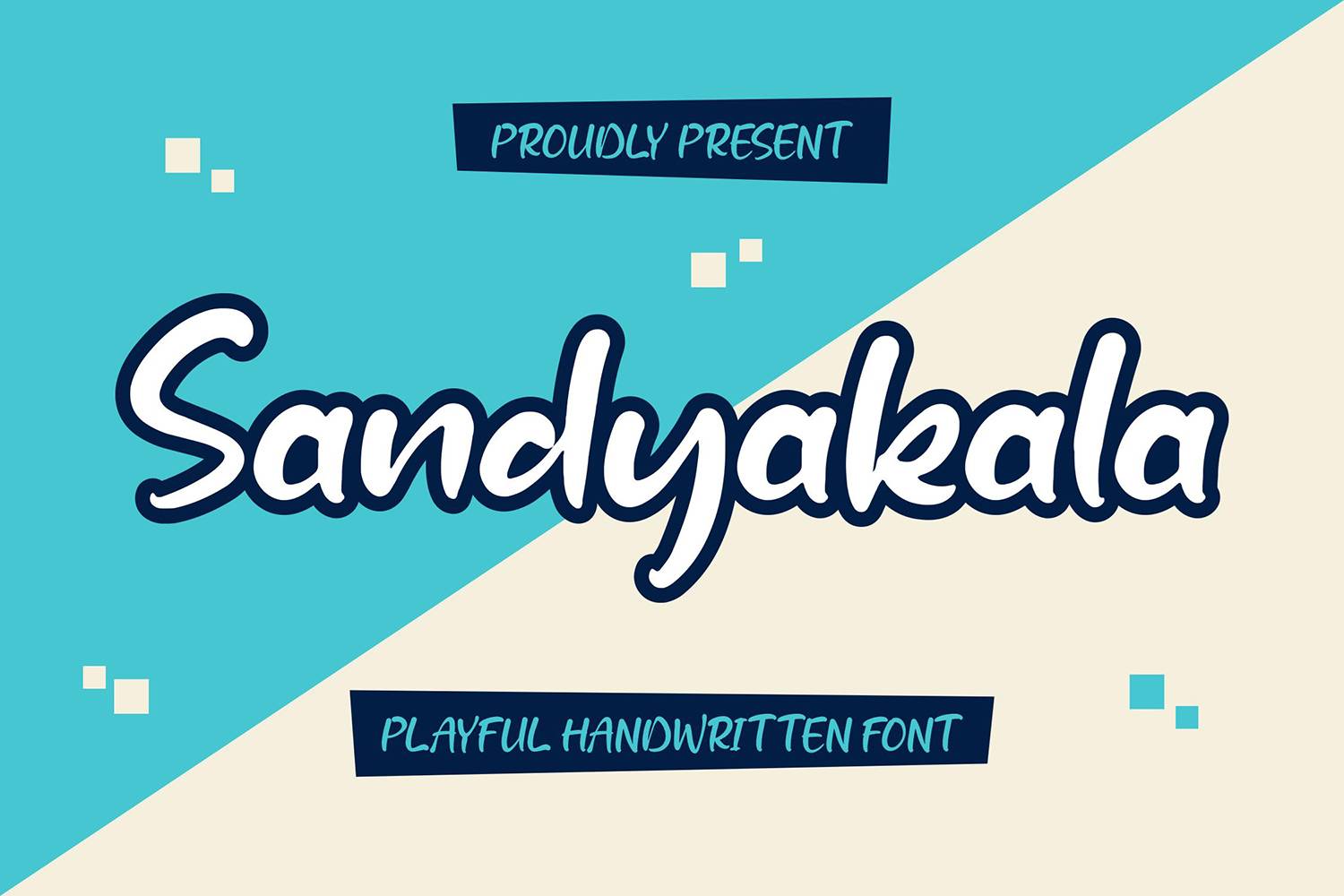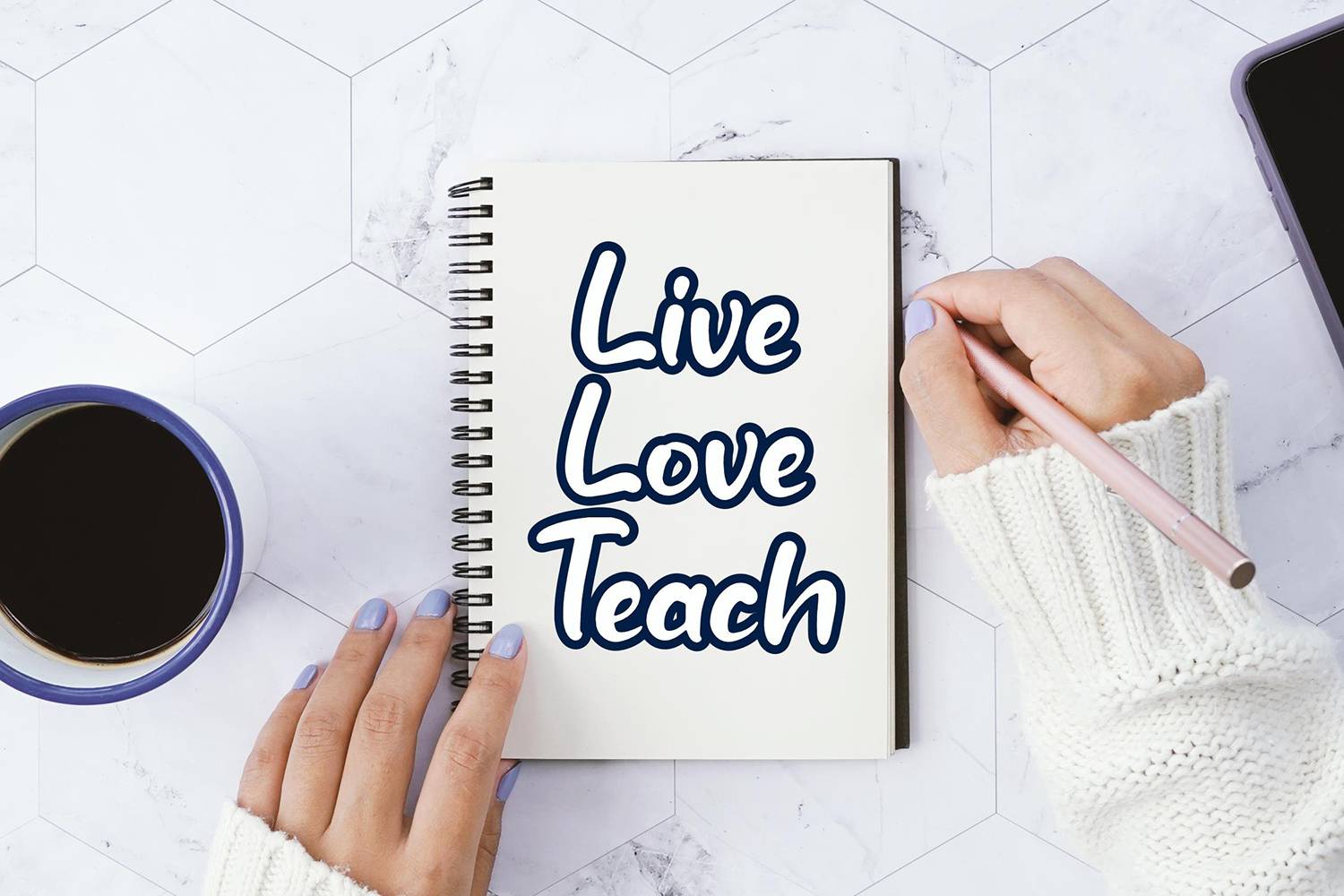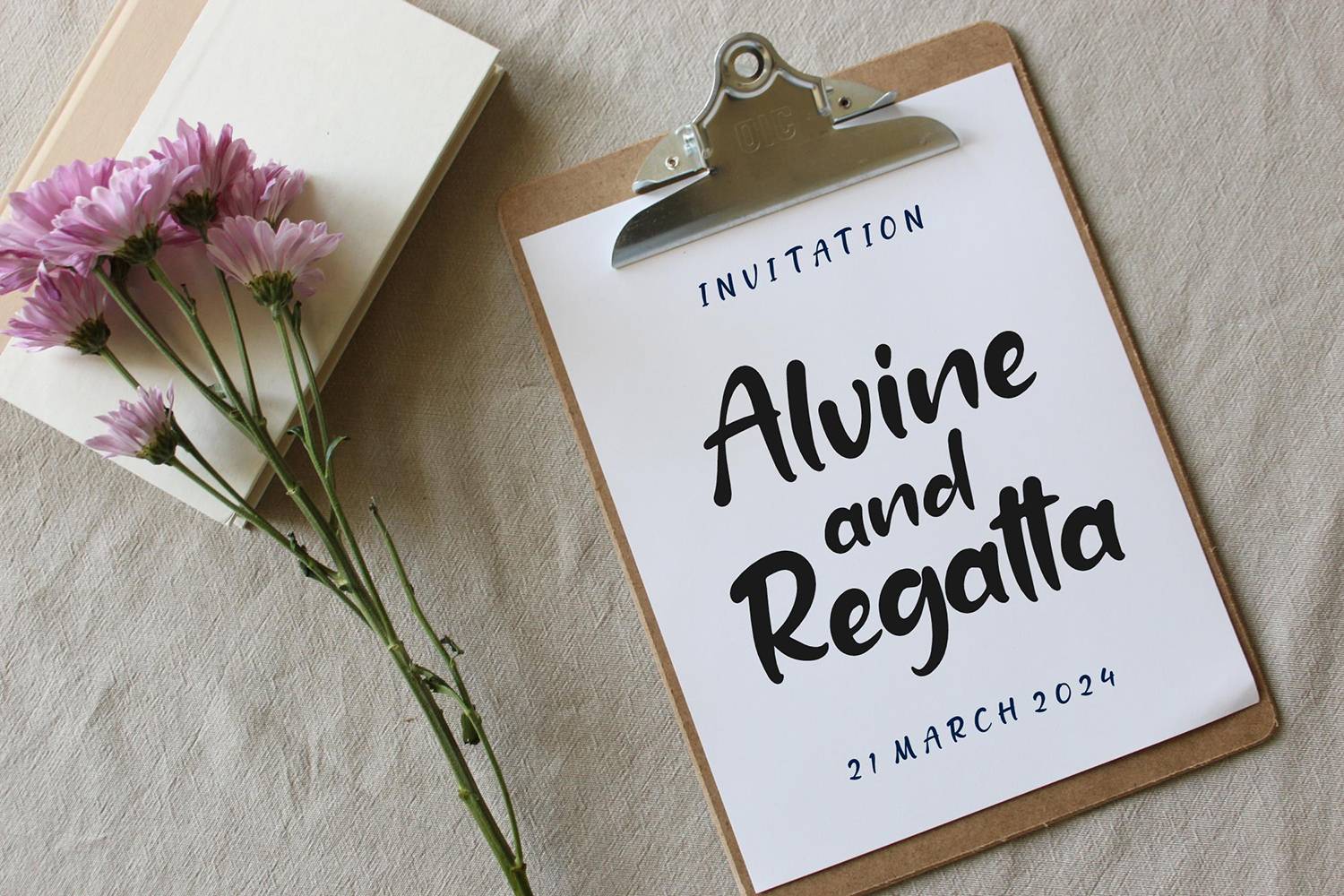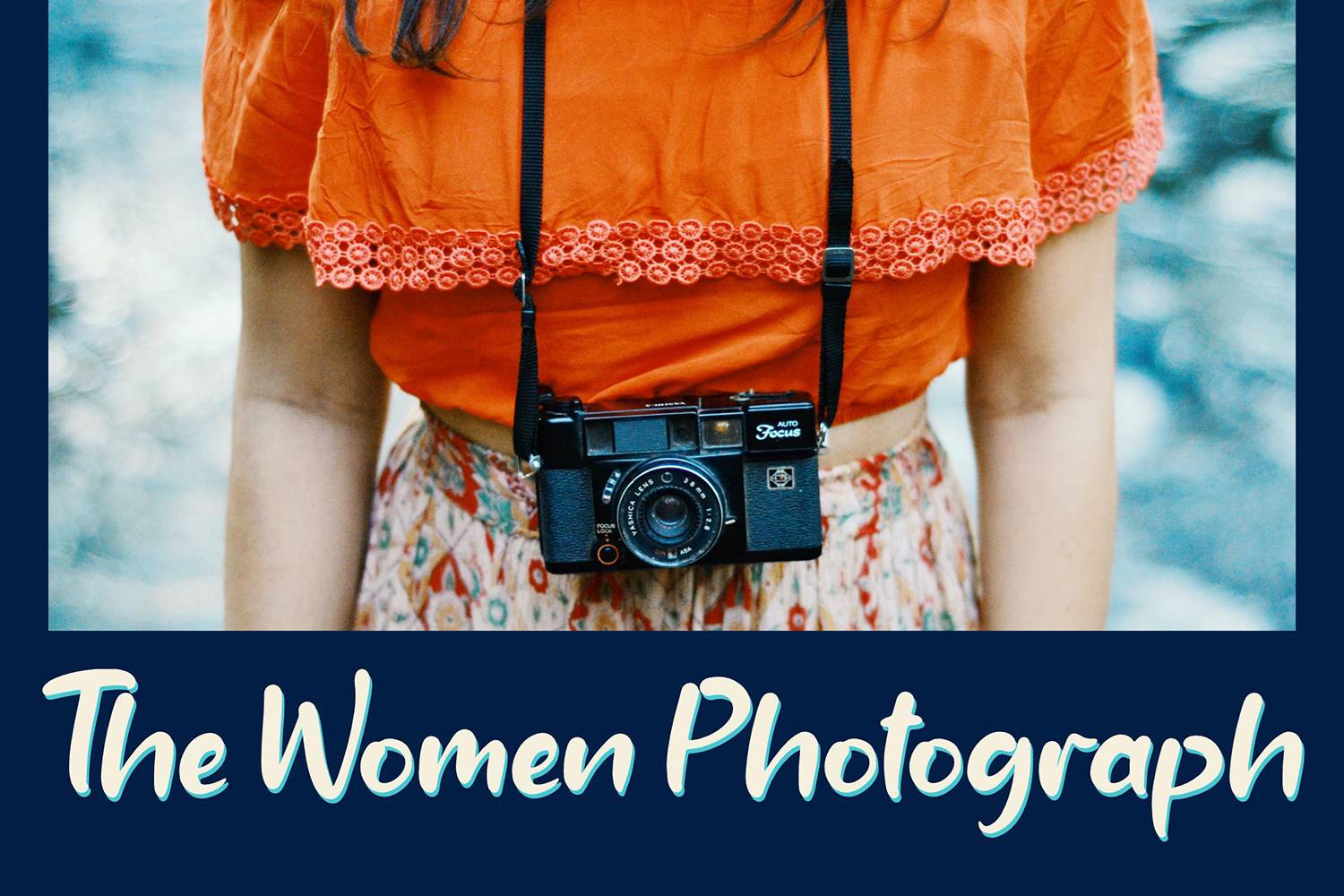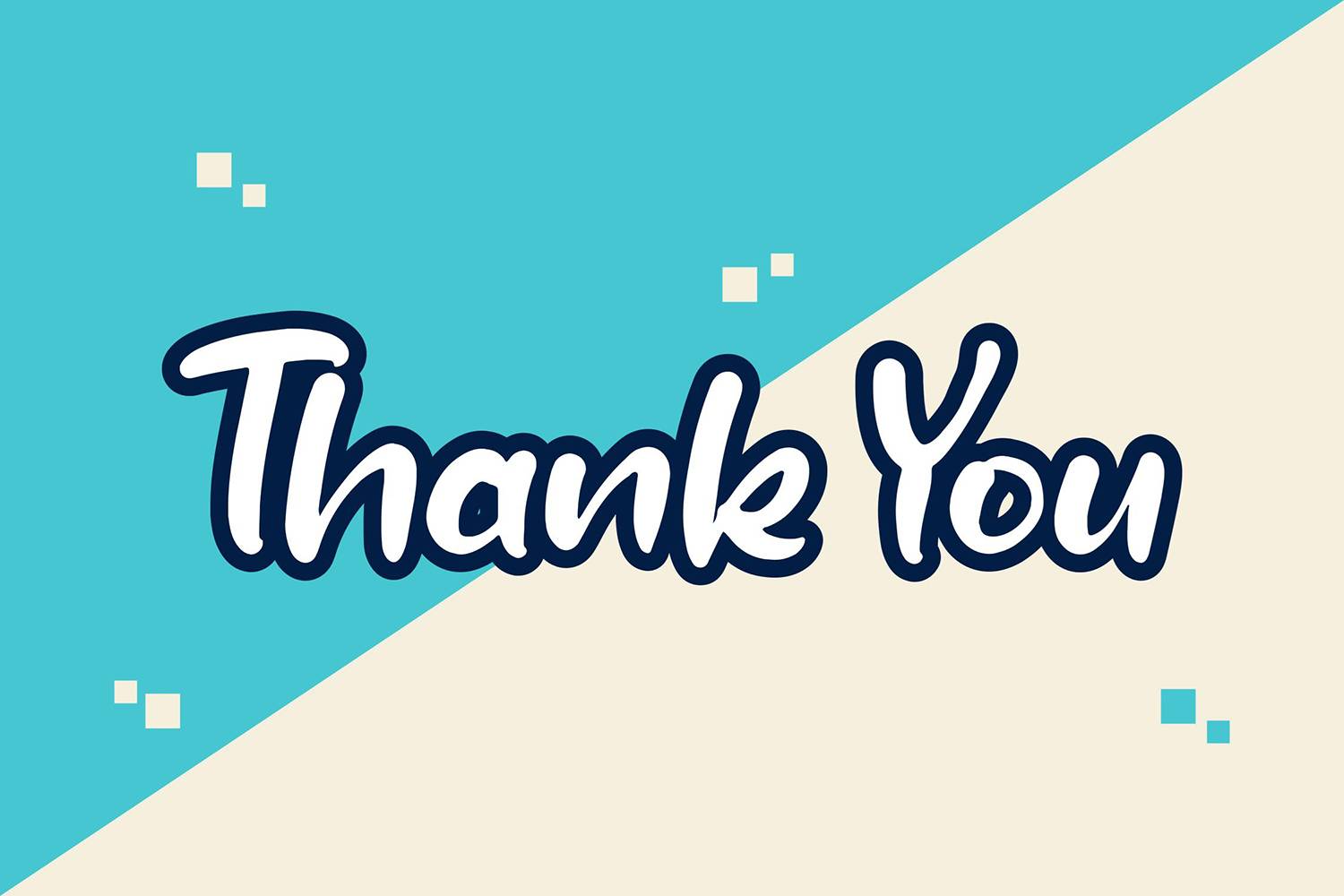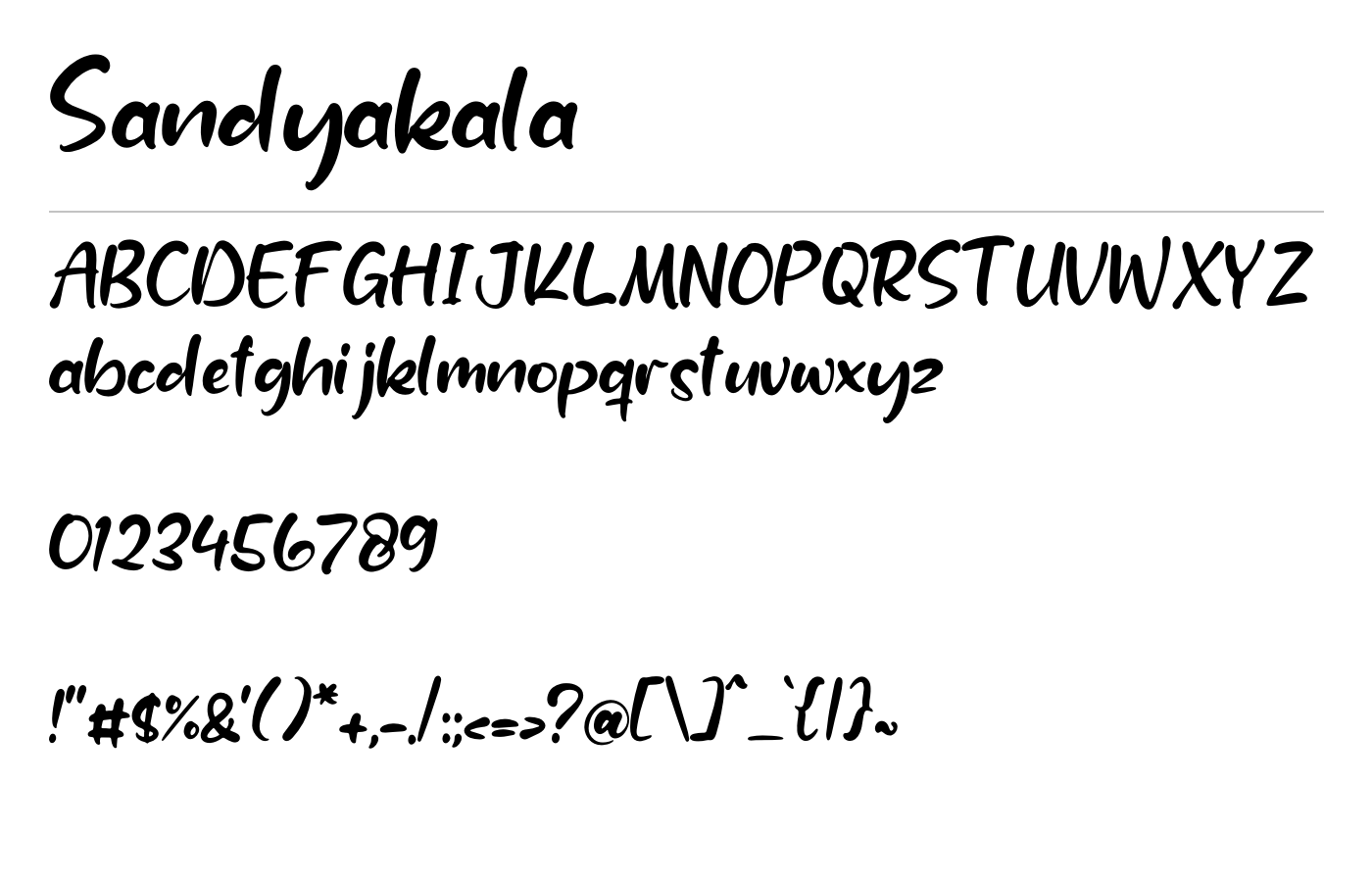
Sandyakala is a casual, handwritten-style sans serif font with a friendly and approachable feel. Its smooth, slightly playful letterforms feature moderate stroke contrast and rounded edges, making it ideal for designs that want to convey warmth and personality. This font works well for informal branding, greeting cards, posters, and any project seeking a personal, human touch.
Sandyakala Font
About Sandyakala Font